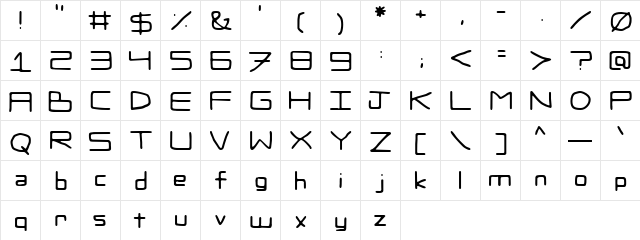
Zaboodla Regular
Design Context for Zaboodla Typeface
Zaboodla is a composed and adaptable typeface that performs quietly and consistently across a wide range of design contexts.